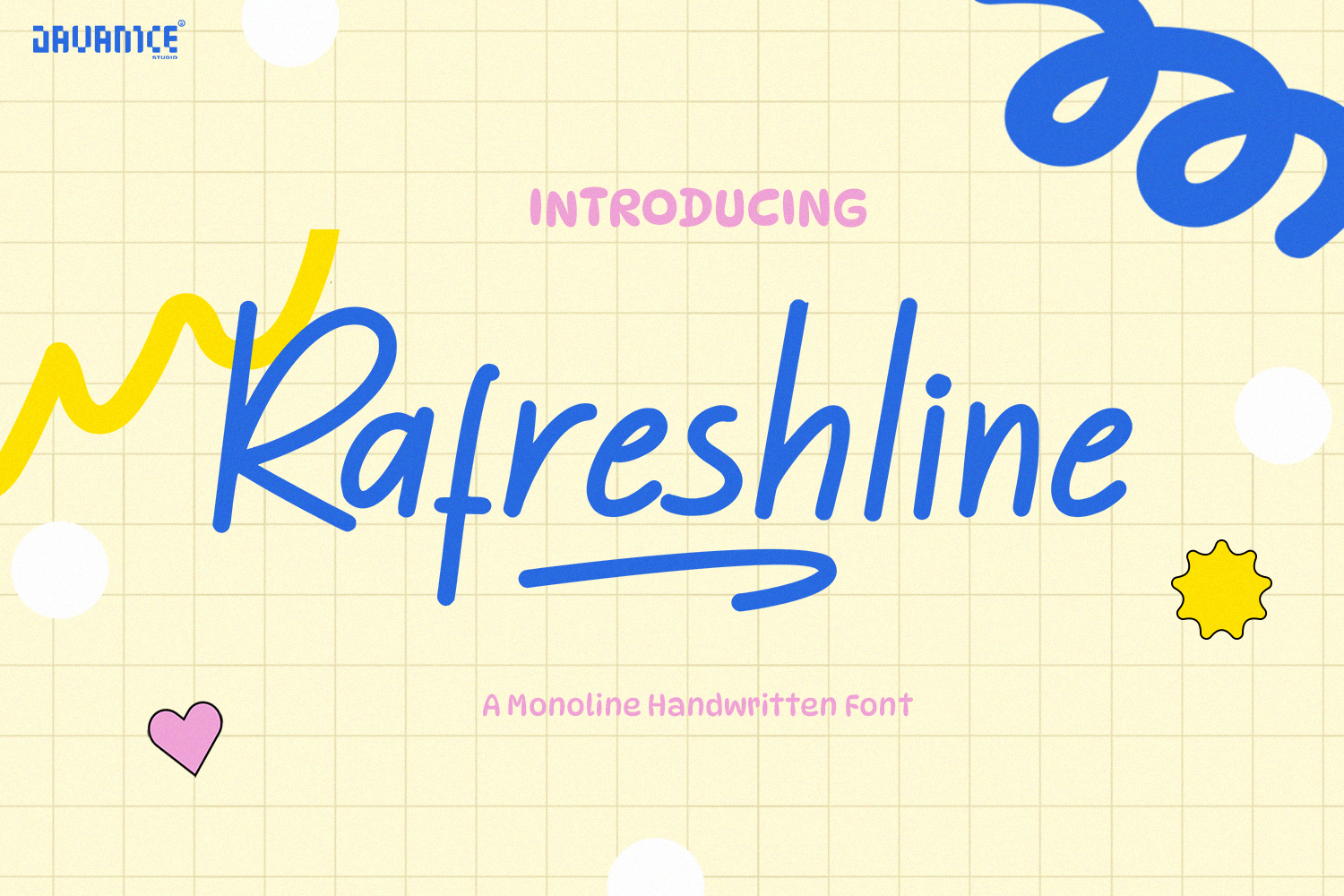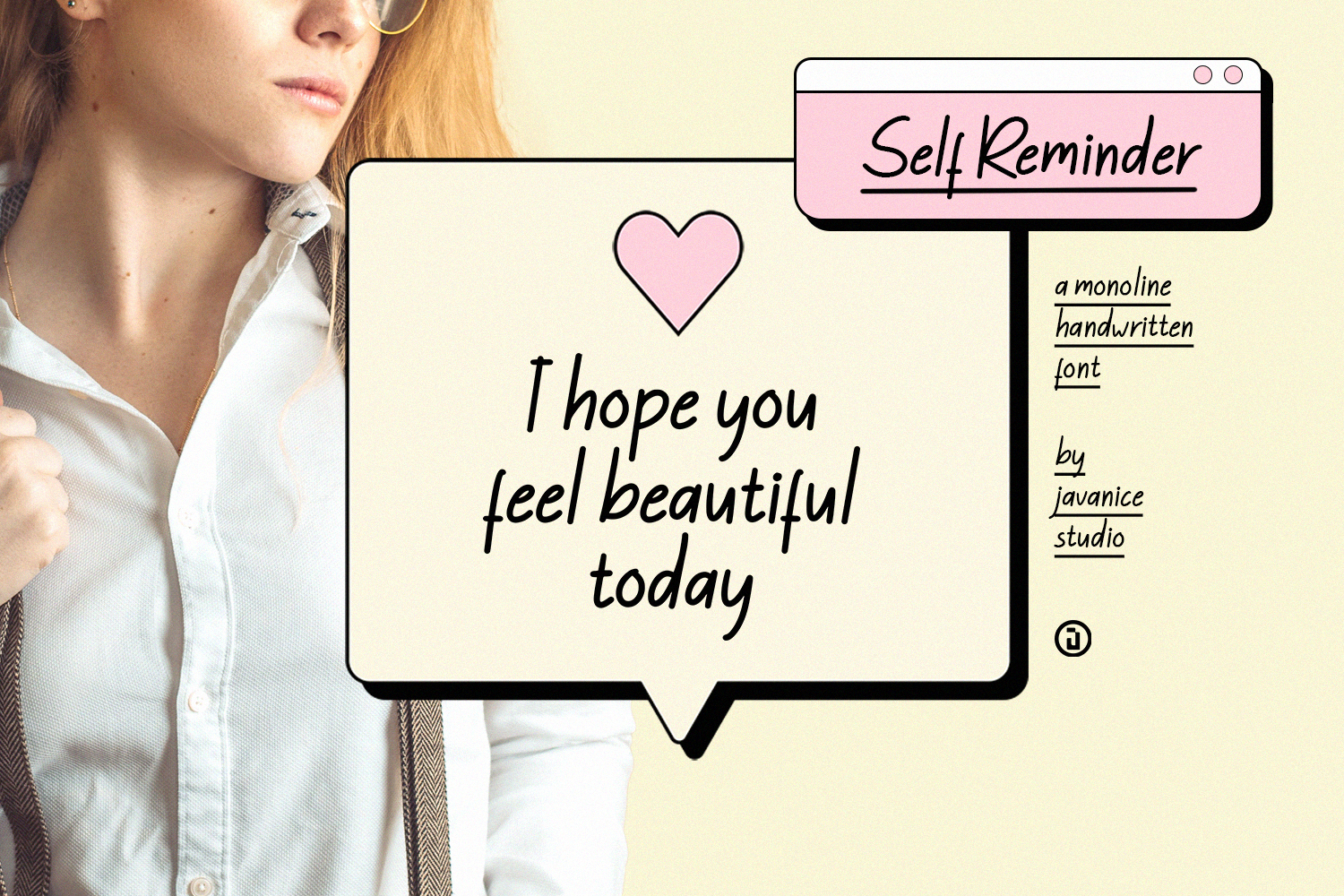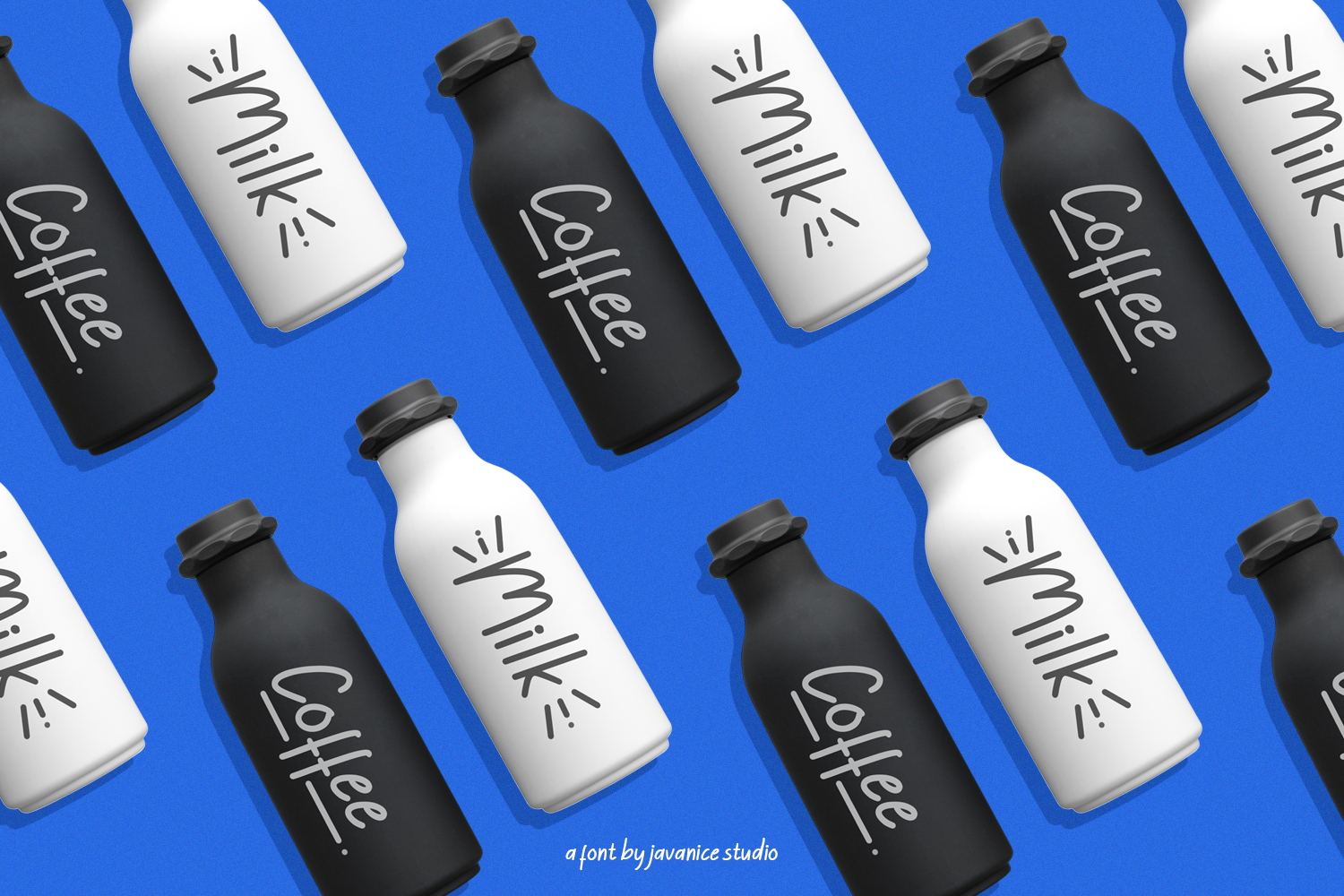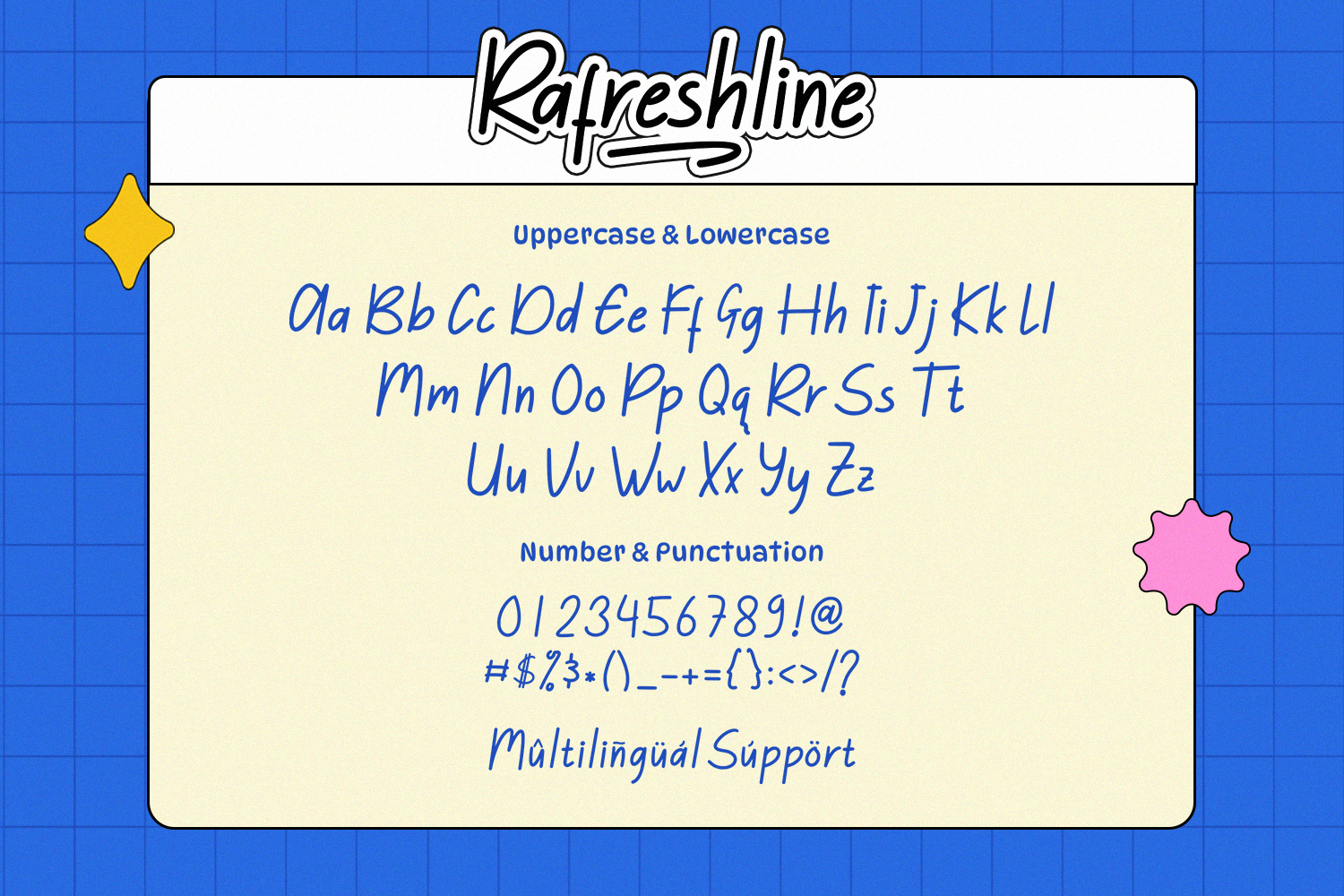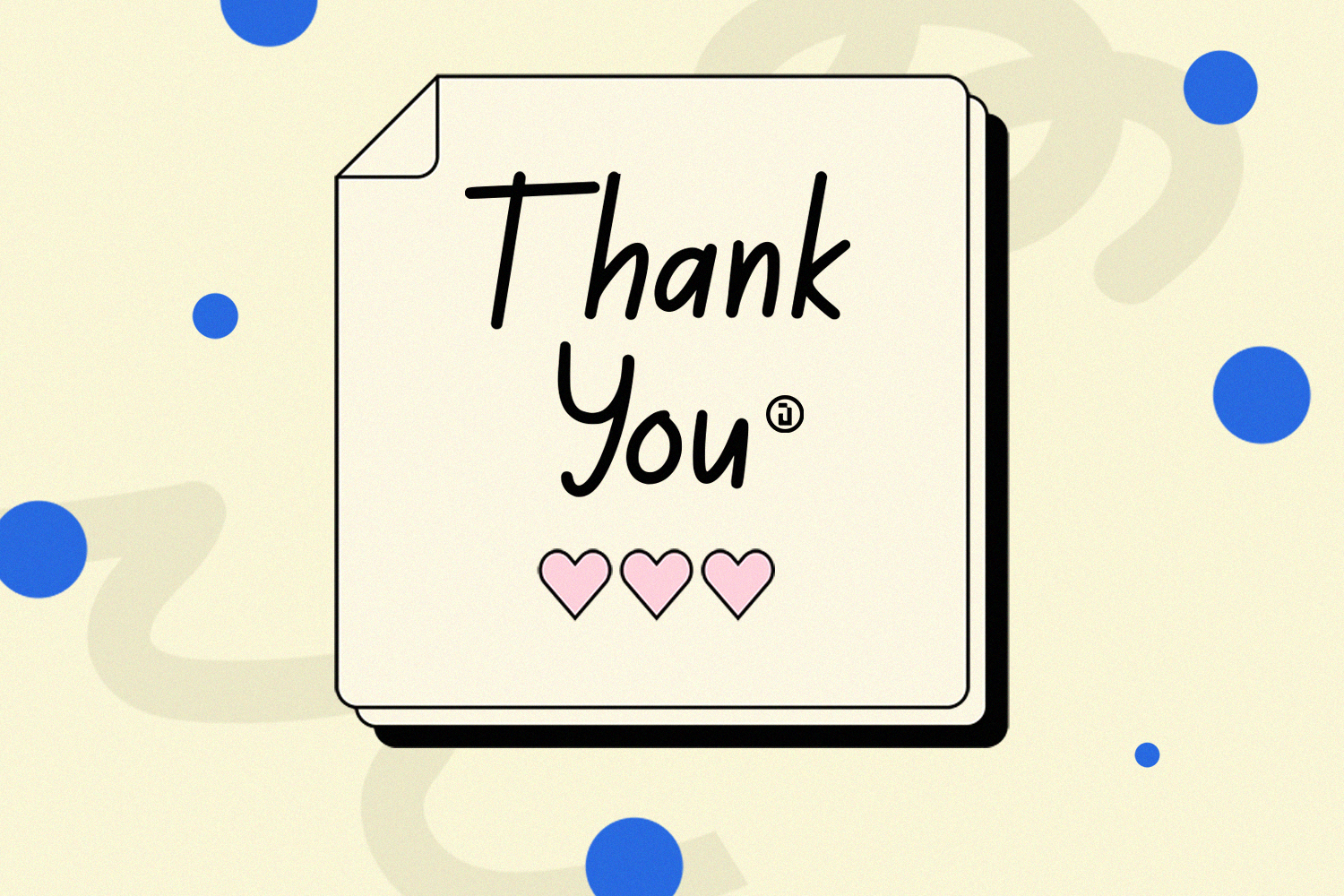
Rafreshline Font
Rafreshline Monoline Font
This is a monoline font. Rafreshline is perfect for branding project, apparel, labels, magazines, books, greeting / wedding cards, packaging, fashion, make up, stationery, and any type of advertising purpose or just used to express words above the background.